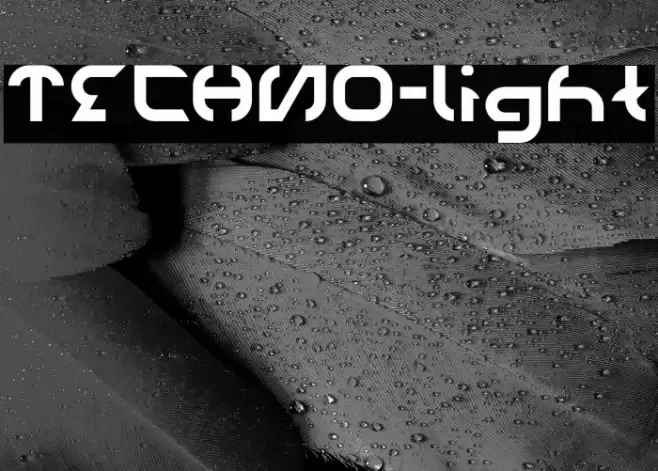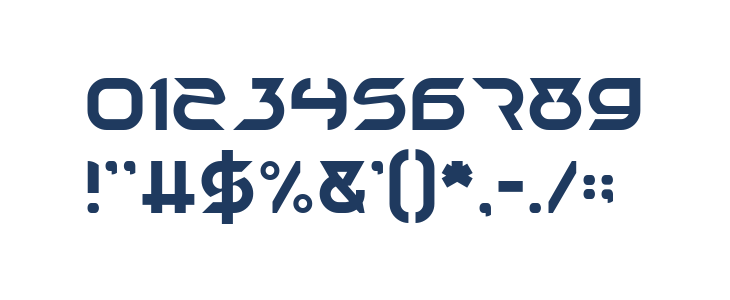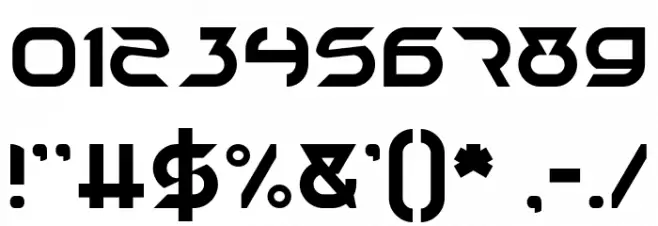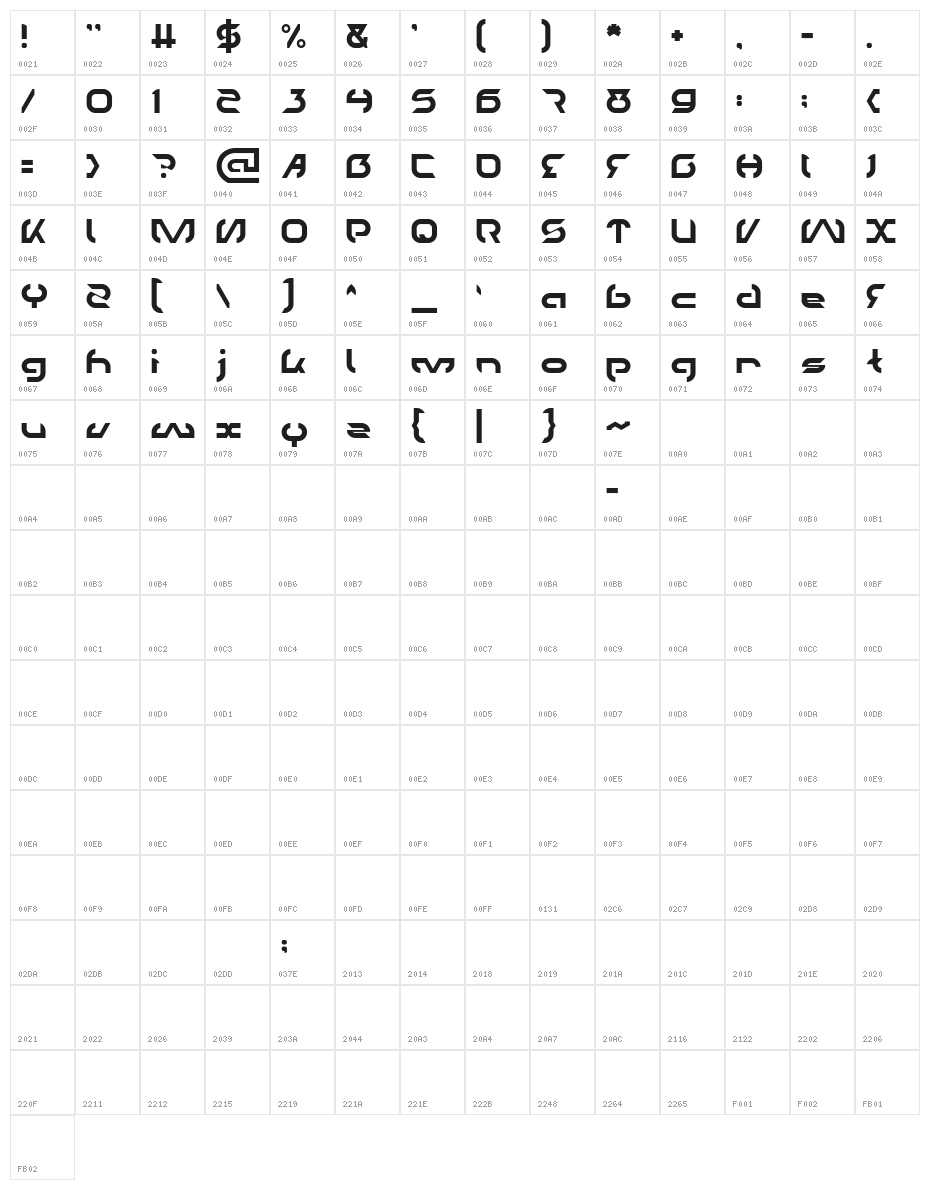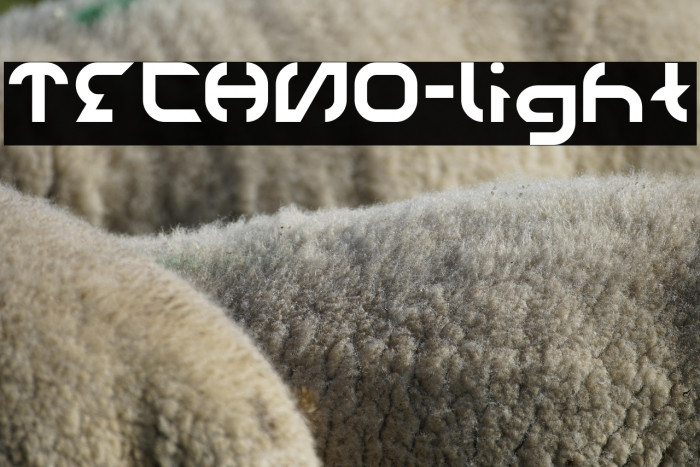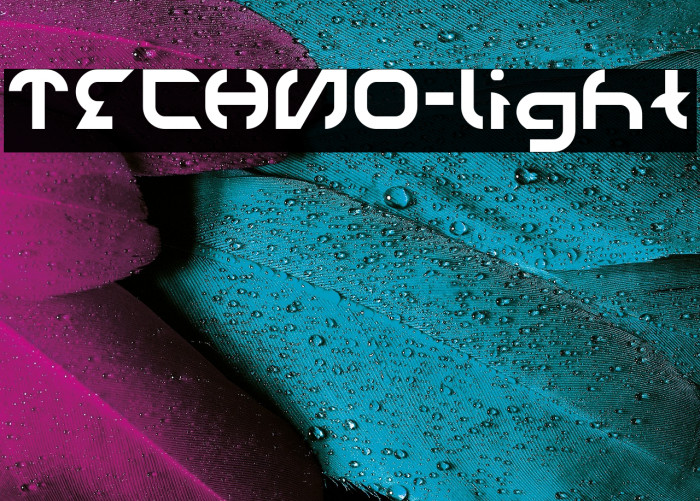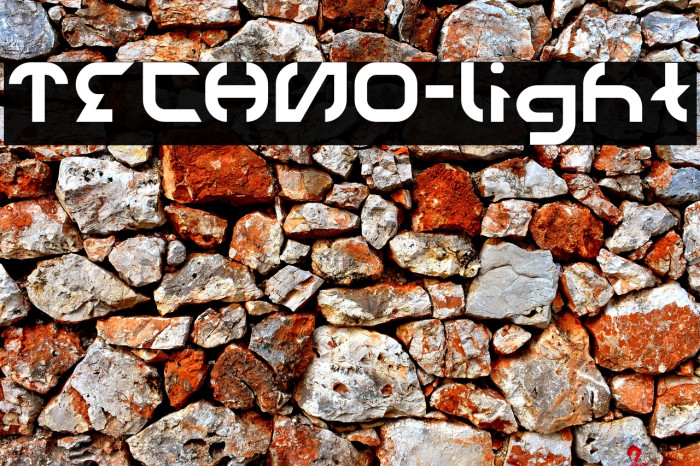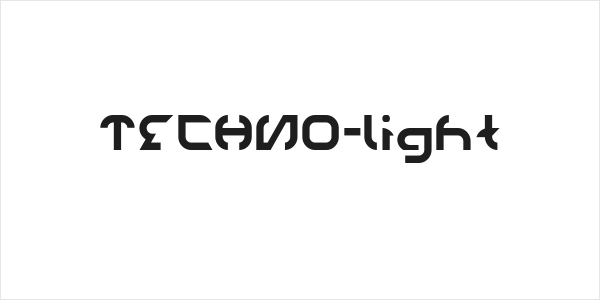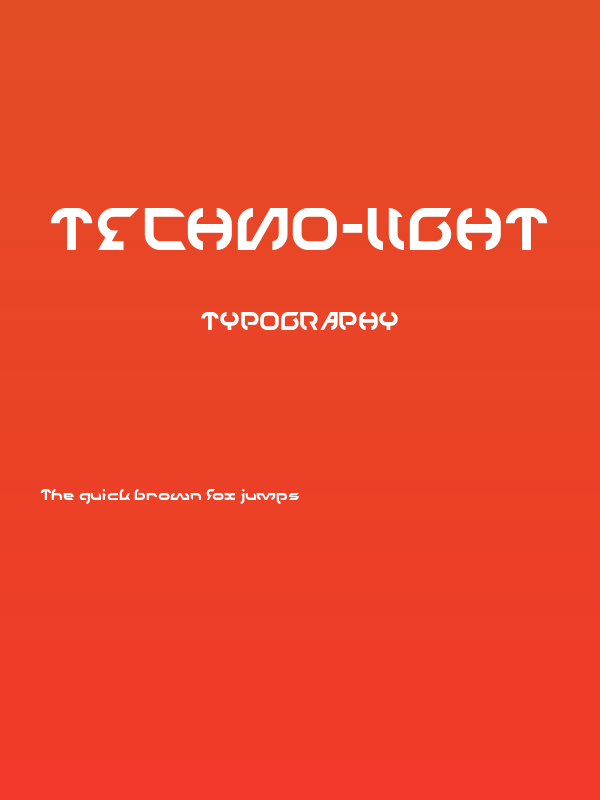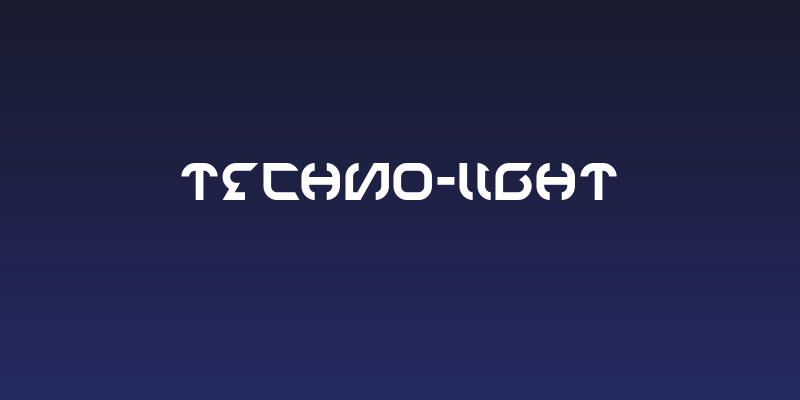
TECHNO-Light Font
TECHNO-Light Description
This font features a futuristic and angular design, characterized by sharp edges and geometric shapes. The uppercase letters are bold and striking, with a consistent height and width that gives a uniform appearance. The lowercase letters maintain the angular style, providing a cohesive look across the alphabet. Numbers and special characters follow the same design principles, ensuring a seamless integration with the text. The font's unique style makes it ideal for projects that require a modern and tech-inspired aesthetic.
- Proposed Projects: Ideal for technology branding, sci-fi posters, video game titles, and digital media.